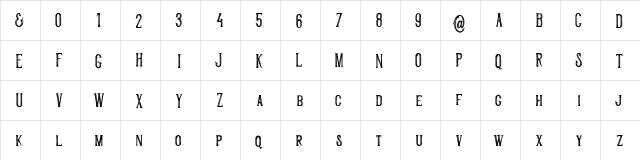
Historycal Inline Regular
| Foundry | Dikas Studio |
| Designer | Andika Setiawan |
Design Context for Historycal Inline Typeface
Historycal Inline brings ornamental detail and strong personality to headlines and identities, where visual impact matters more than quiet functionality.
Font Pairing: Pair with a clean neutral sans-serif for body copy to let Historycal Inline's character lead without overwhelming the composition.
Pro Tip: Treat Historycal Inline as the centrepiece of your typographic hierarchy. One strong heading set in a decorative face can carry an entire layout.